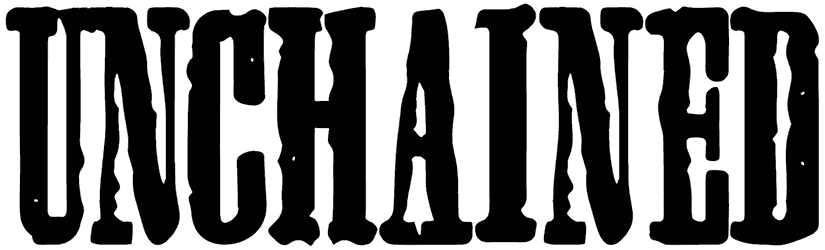
Unchained Font
If you want to make an attractive cowboy design, this can be the final destination of your search. As a wanted poster font, Unchained is a bold and realistic font that can catch a lot of attention. It doesn’t offer numbers, but having two variants will give you an opportunity to place it for varied projects like movie posters, album covers, illustrations, and so forth.